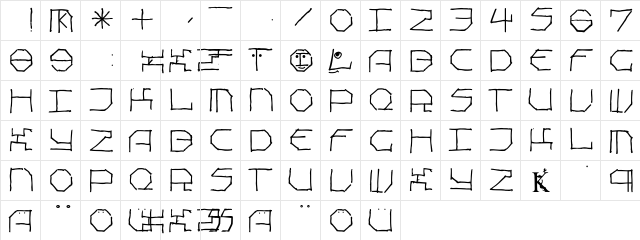
Pompeji Regular
Design Context for Pompeji Typeface
Pompeji is a composed and adaptable typeface that performs quietly and consistently across a wide range of design contexts.